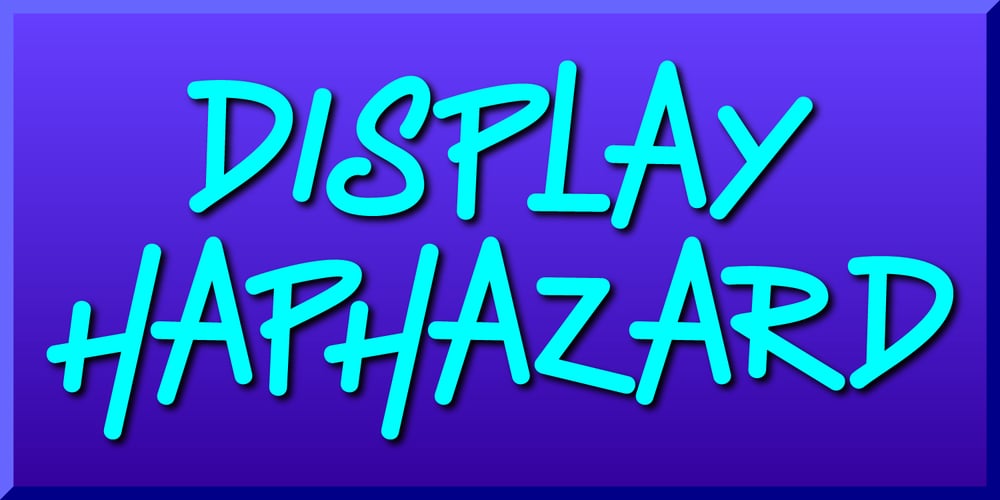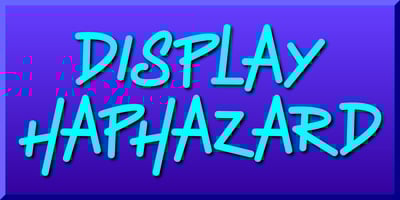
Display Haphazard Font Family was designed by Gerald Gallo and published by Gerald Gallo. Display Haphazard contains 1 styles and family package options. Display Haphazard is a display font not intended for text use. It was designed specifically for display, headline, logotype, branding, and similar applications. Display Haphazard has an uppercase alphabet located under the character set keys and a full set of alternate uppercase characters located under the character + shift keys. It also has numbers with alternates, and punctuation.